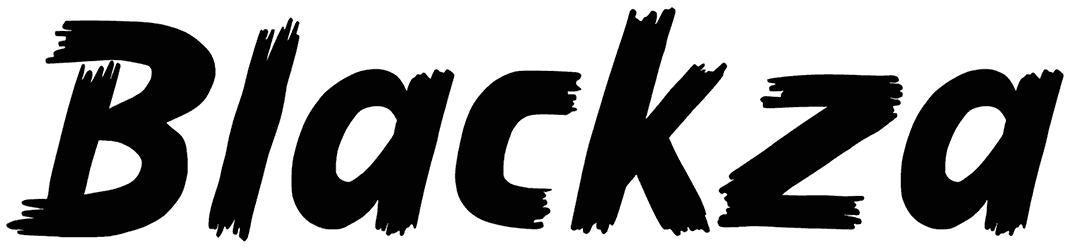
Blackza Font
It’s time to make use of Blackza font and take your text layouts to the next level. This brush font with bold letters can be perfect for titles, books, games, and wherever you consider. Give it a try now and if you crave more of this category, head over to Resource Boy.